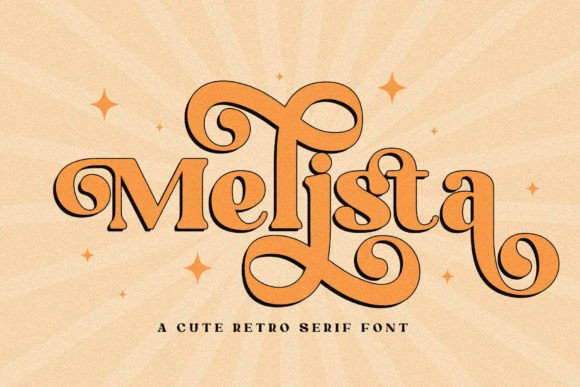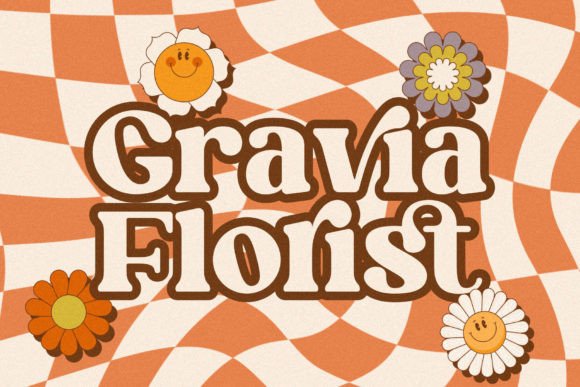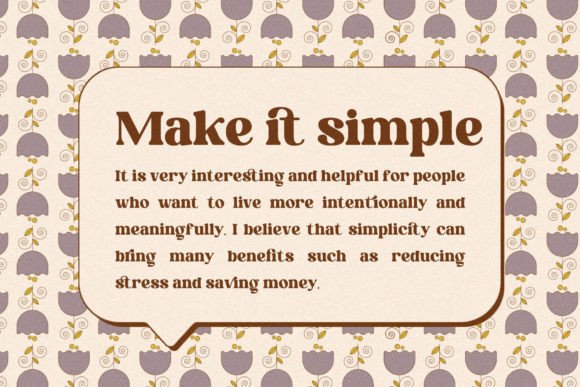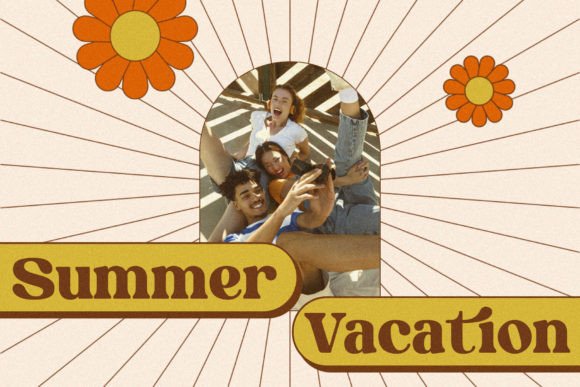
Melista Font: Cute Retro Serif for Playful Logo Design & Branding
About the Melista Font
The wait is over! The incredible Melista Font is now available for your design toolkit. Melista is a cute display retro serif font that features unique and playful shapes. This font is perfect for fashion, branding, and logo design projects that want a dash of whimsy and creativity. You can apply Melista for logos, branding, posters, flyers, invitations, and more.
Melista’s playful retro style shines in headlines, short taglines, and logos where its unique character can make a strong visual statement. It’s ideal for projects targeting a younger demographic or those with a vintage, quirky aesthetic, such as fashion brands, ice cream parlors, or craft breweries. Avoid using Melista for body text or lengthy paragraphs; its distinctive forms are not optimized for readability in extended use.
Pairing Melista effectively requires considering its inherent whimsy. A clean sans-serif like Open Sans or a geometric sans-serif like Futura can provide a contemporary counterpoint, grounding its retro charm. For a softer contrast, consider pairing it with a script font like Allura, but use the script sparingly to avoid overwhelming the Melista’s playful personality.
Melista’s overall personality is best described as cheerful and retro-modern, conveying a sense of fun and lightheartedness. Its unique letterforms bring a touch of vintage charm to contemporary designs.
Melista Font Usage Examples
Melista Font Example